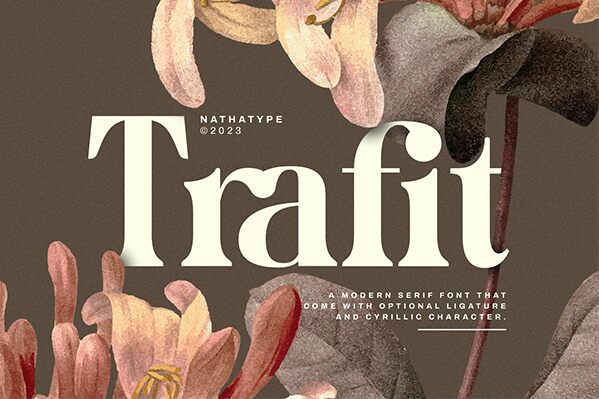
Trafit by Nathatype is a captivating serif font that commands attention with its striking presence. This typeface exudes a timeless elegance, with its bold strokes and refined serifs creating a harmonious balance between classic and contemporary aesthetics. The Trafit font's distinct character evokes a sense of sophistication, making it an ideal choice for headers, titles, and high-impact design elements.
The Trafit font's versatility lends itself to a wide range of applications, from editorial design and branding to packaging and advertising. Its robust and legible letterforms ensure effortless readability, while the font's versatile nature allows it to seamlessly integrate into both modern and traditional design contexts. Whether crafting a luxurious magazine spread or designing a captivating product label, the Trafit font by Nathatype delivers a striking visual impact that is sure to leave a lasting impression.